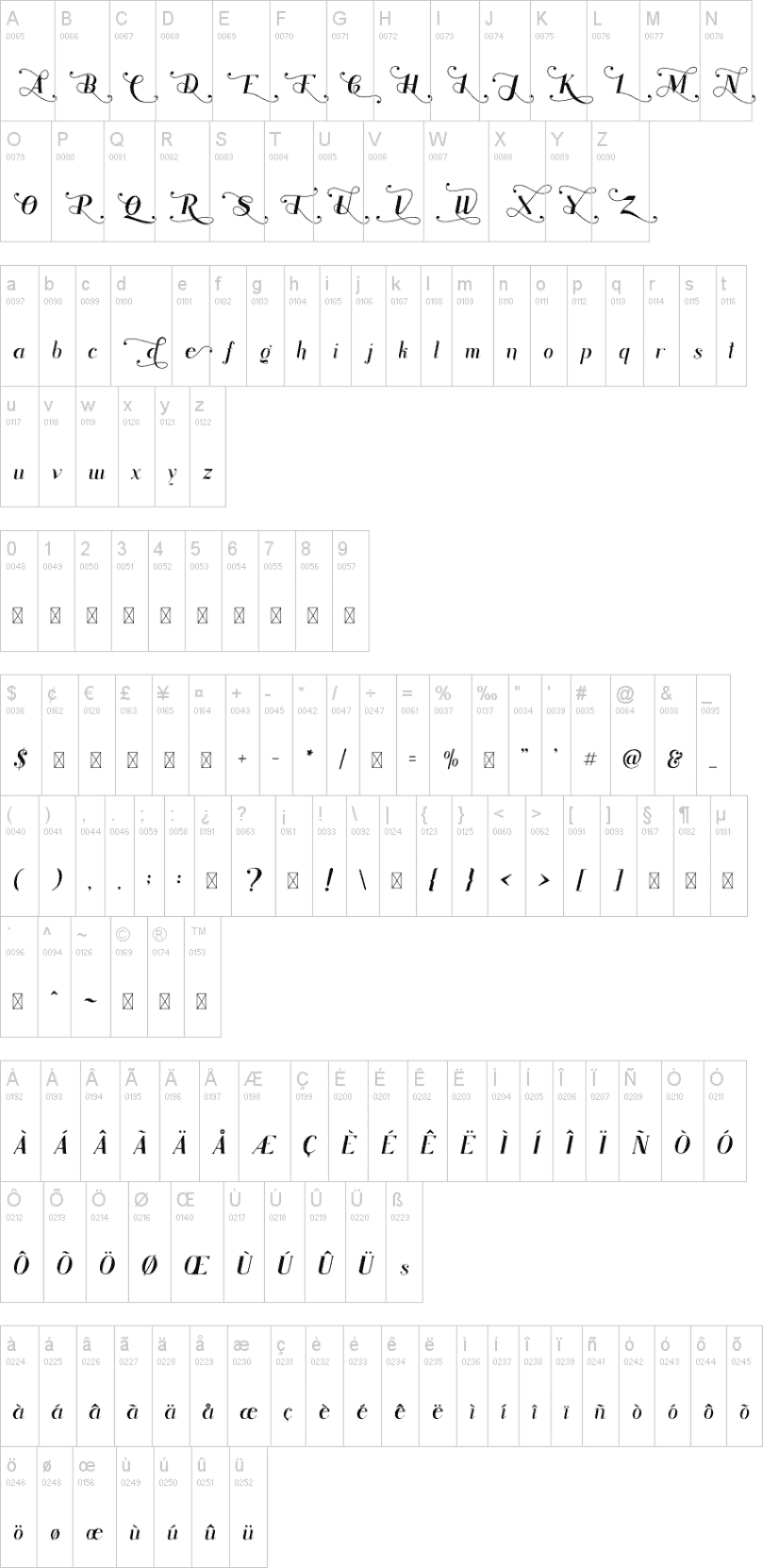
Rhonde is a modern classic typeface with a large set of alternative uppercase and lowercase letters with swashes to be used in conjunction with each other to create unique and beautiful designs. This typeface is suitable for logos, title, heading, tagline, t-shirt, calligraphy, product name, poster, merchandise, social media, labels, branding, greeting cards, and many more.